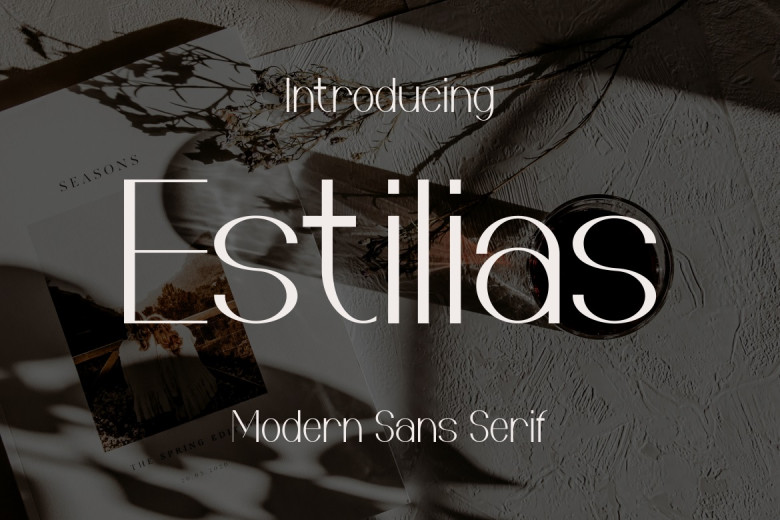
Estilias Font
Estilias is a modern Sans Serif font with thin and elegant characters. This lovely font is suitable for any branding project like logo, t-shirt printing, esports, and many more. Outstanding in a wide range of contexts.
Estilias Sans Serif Font